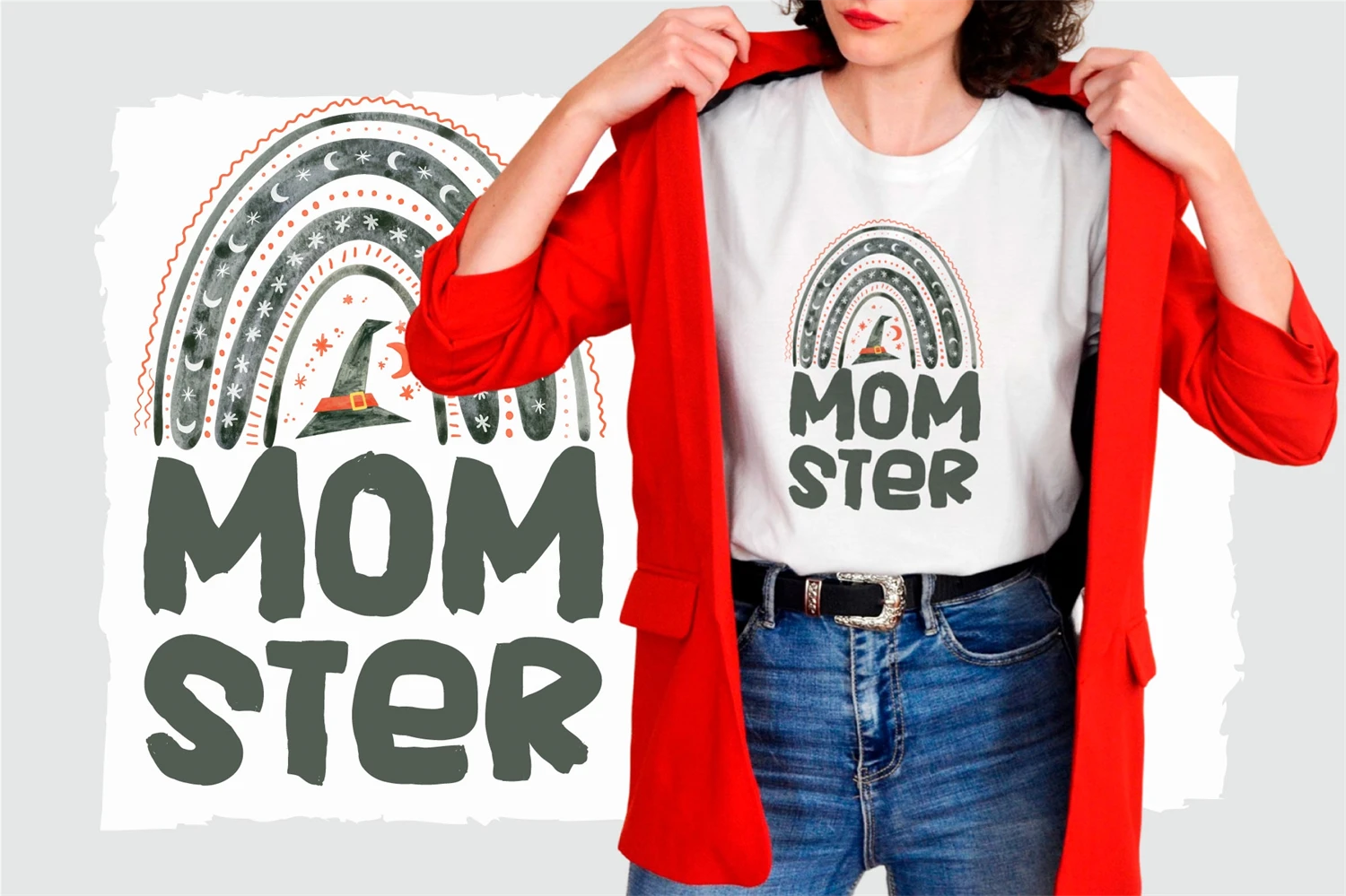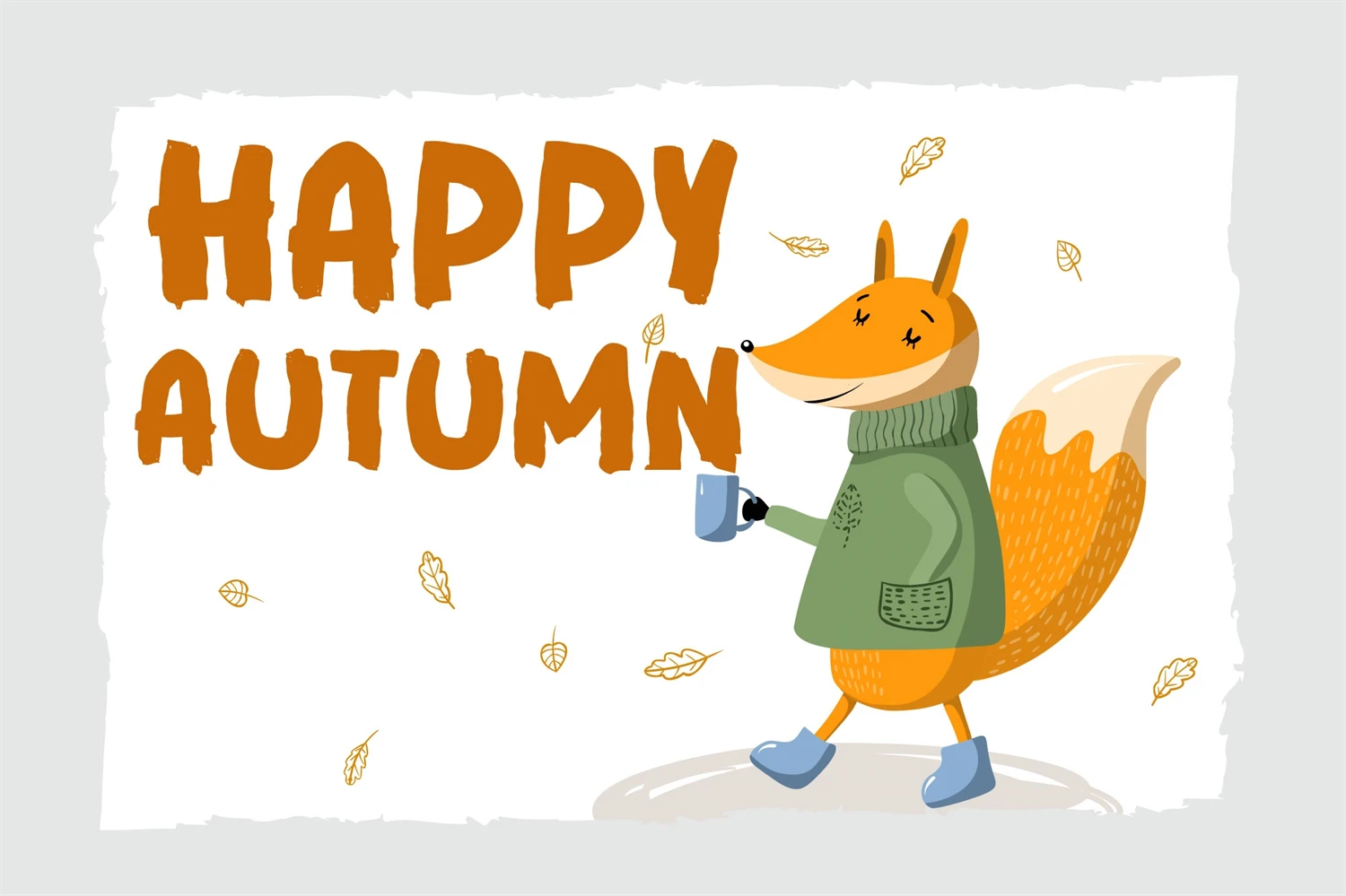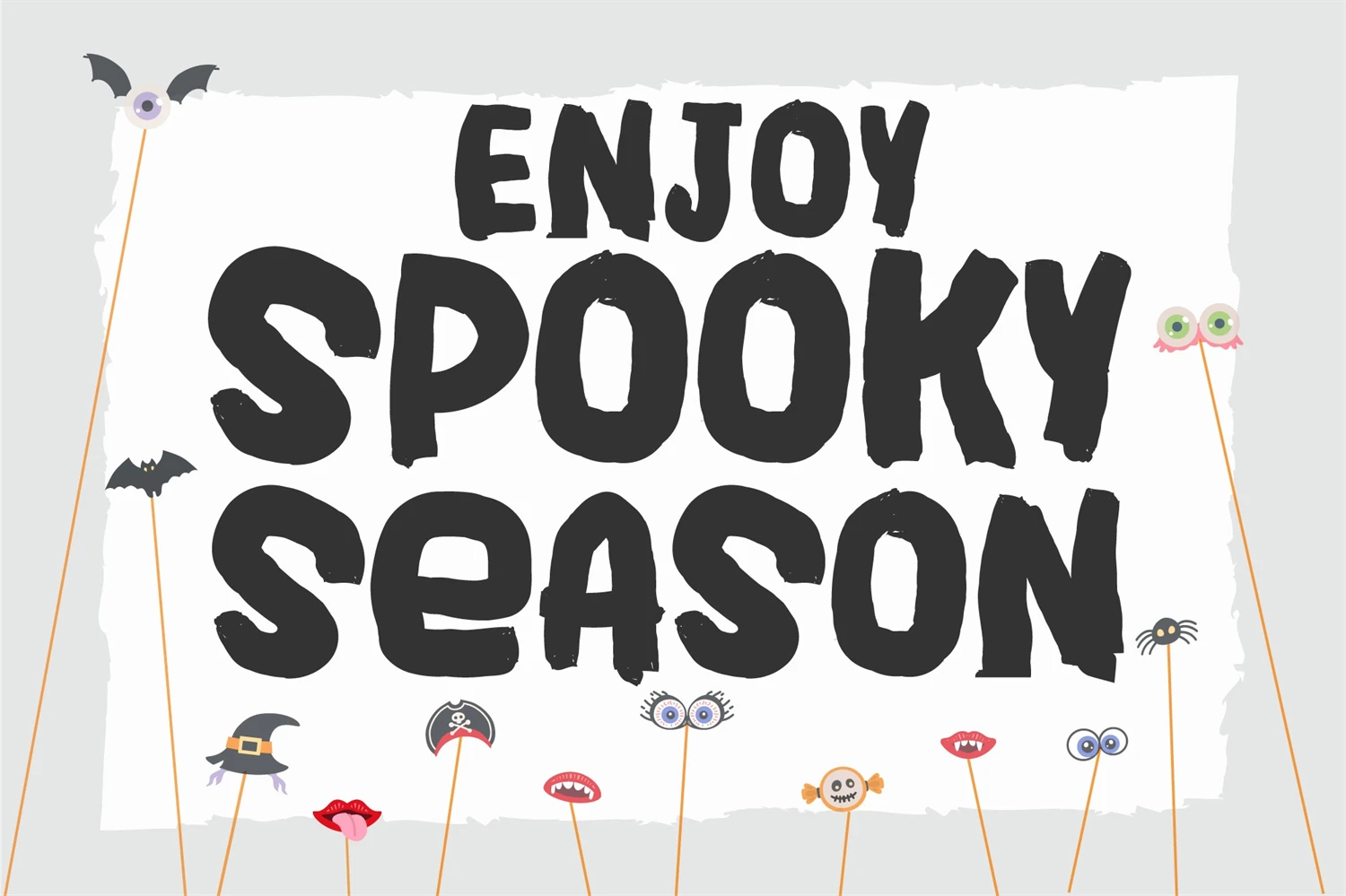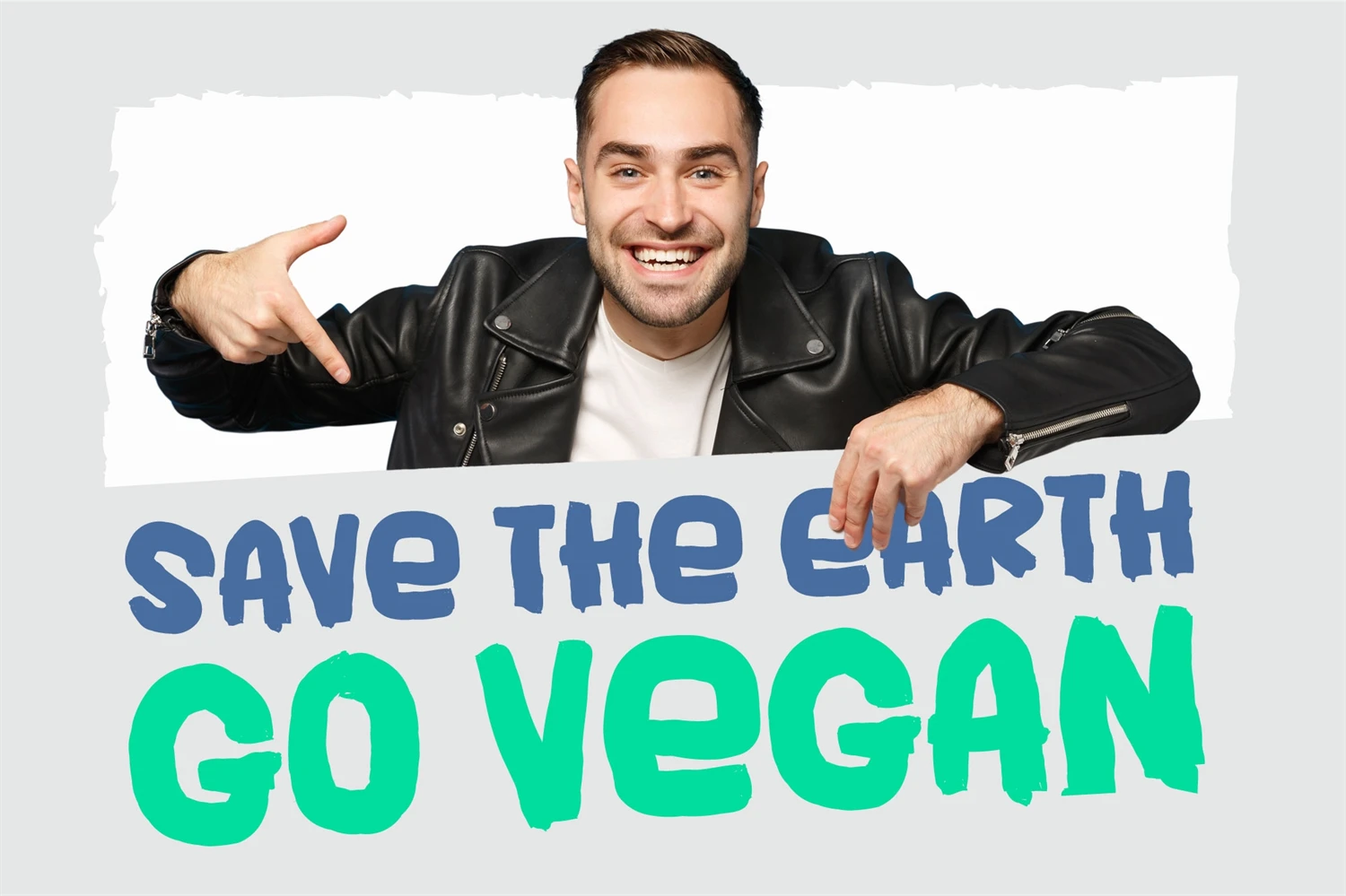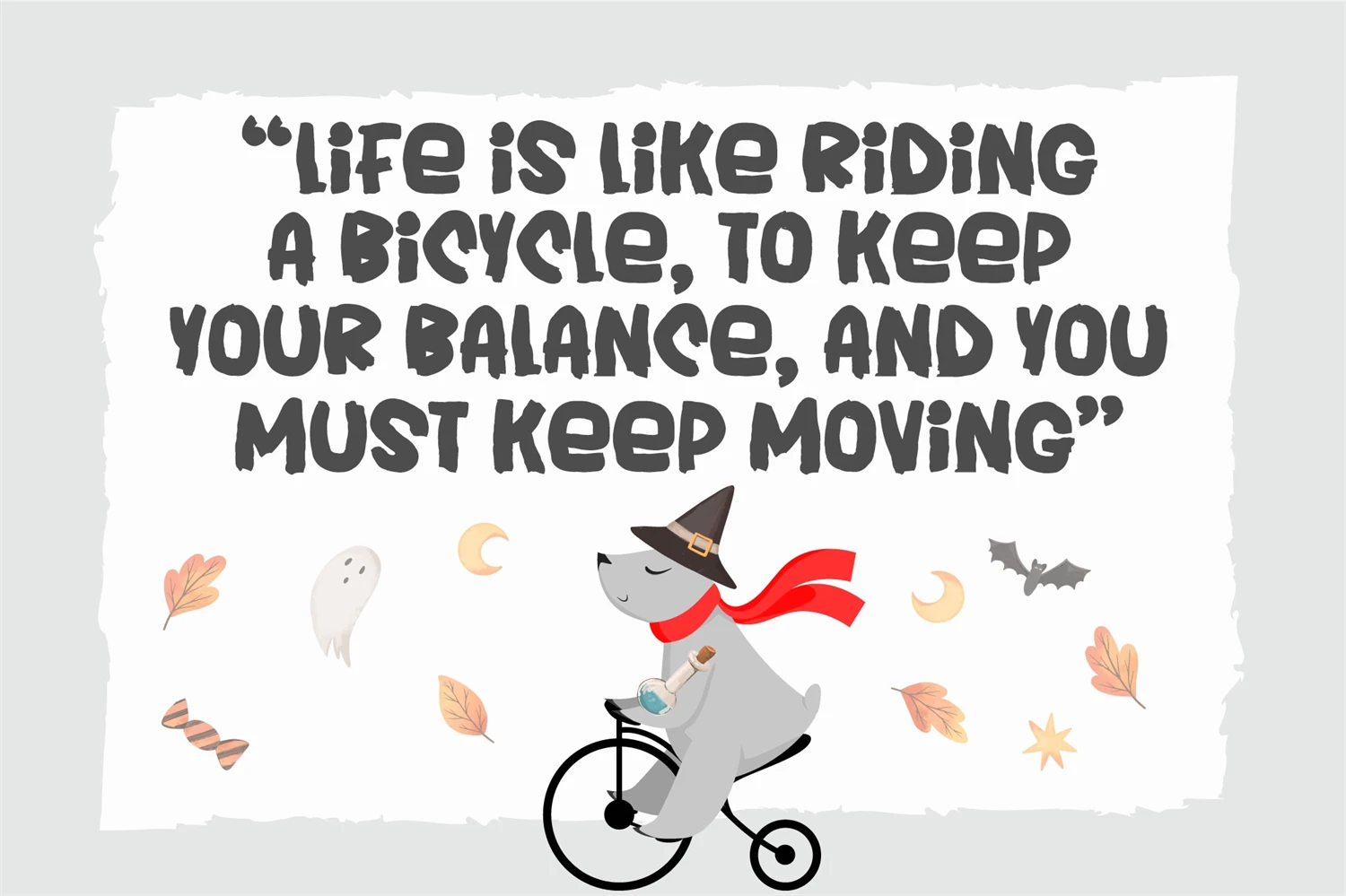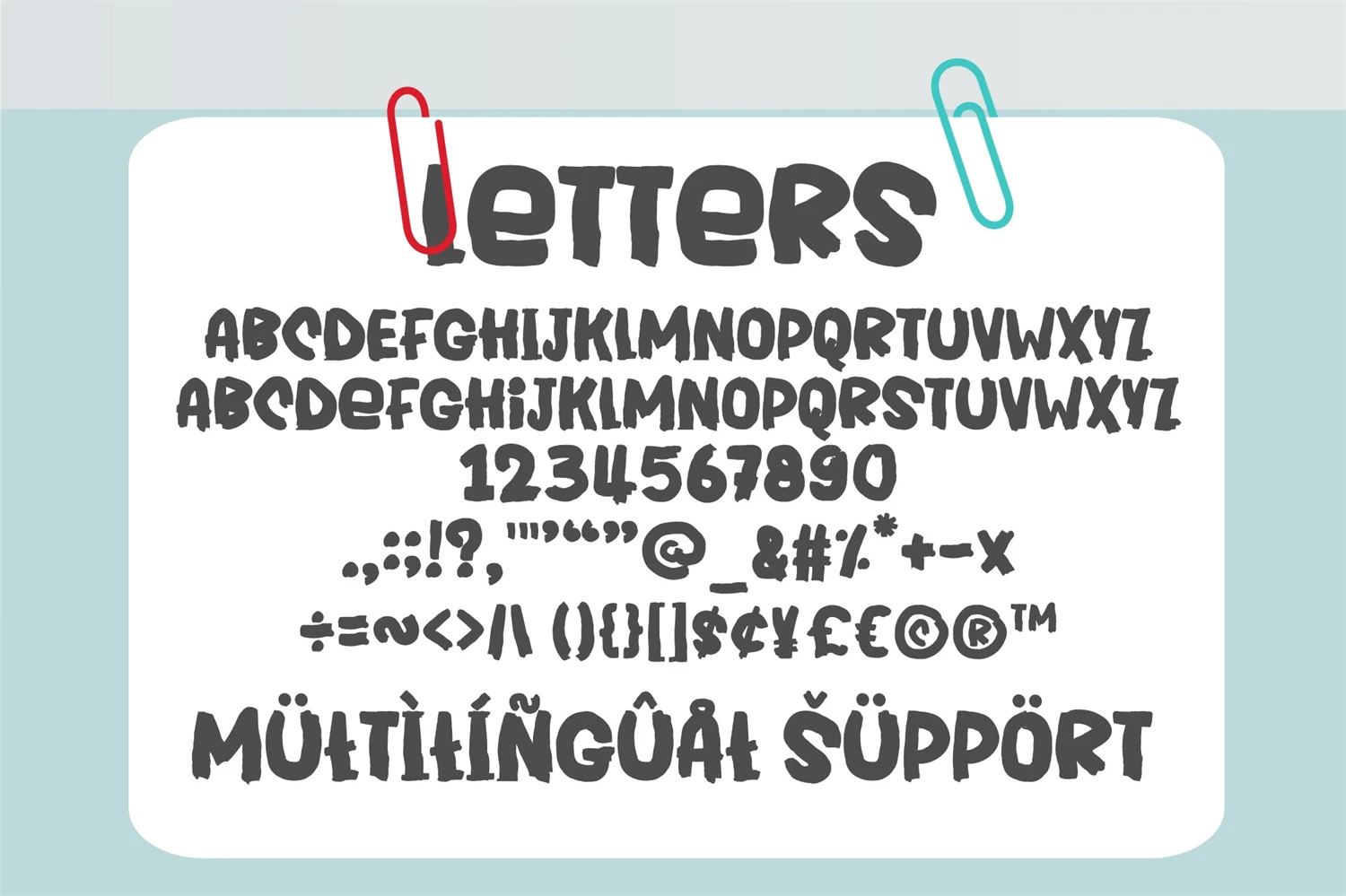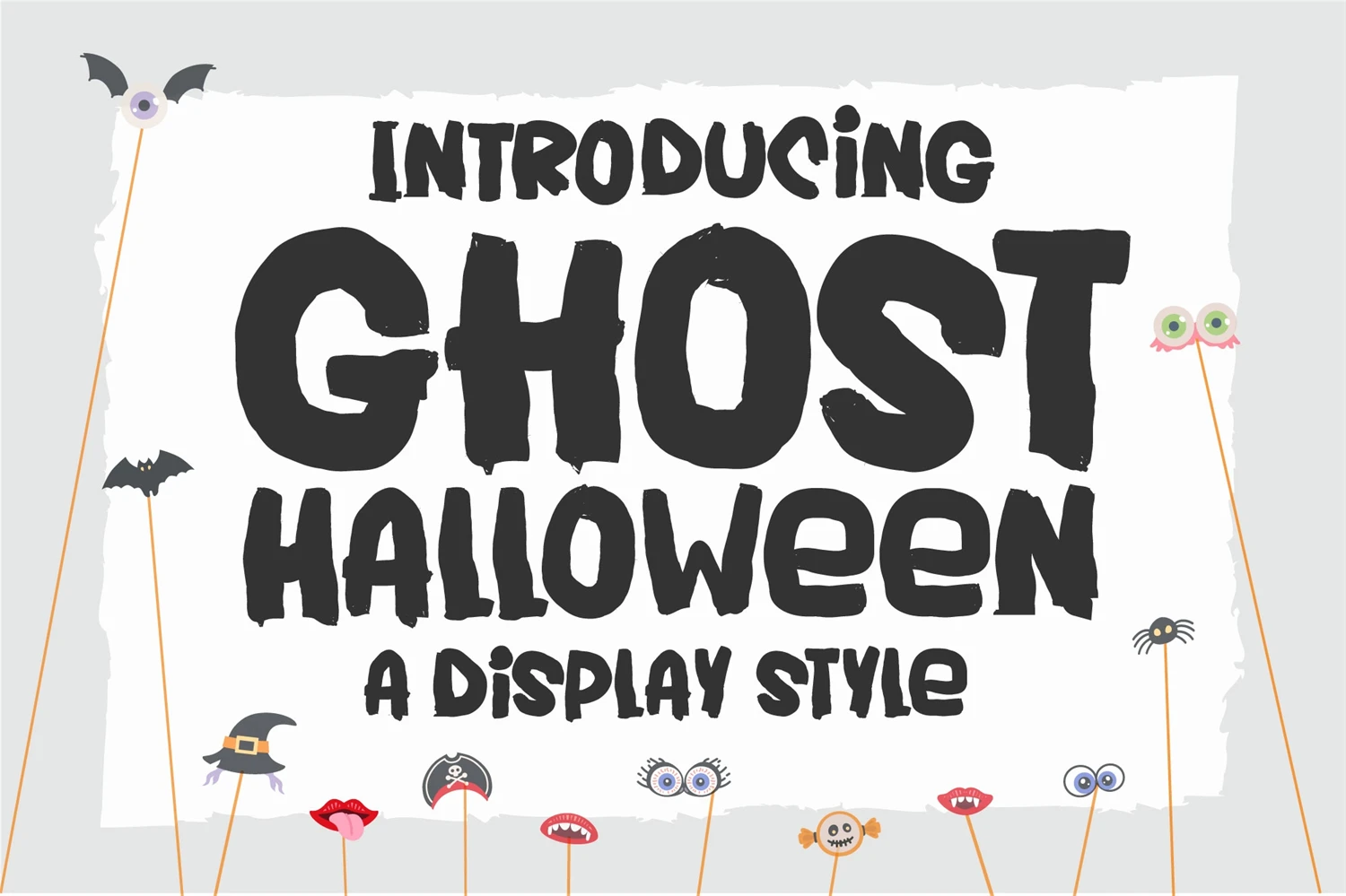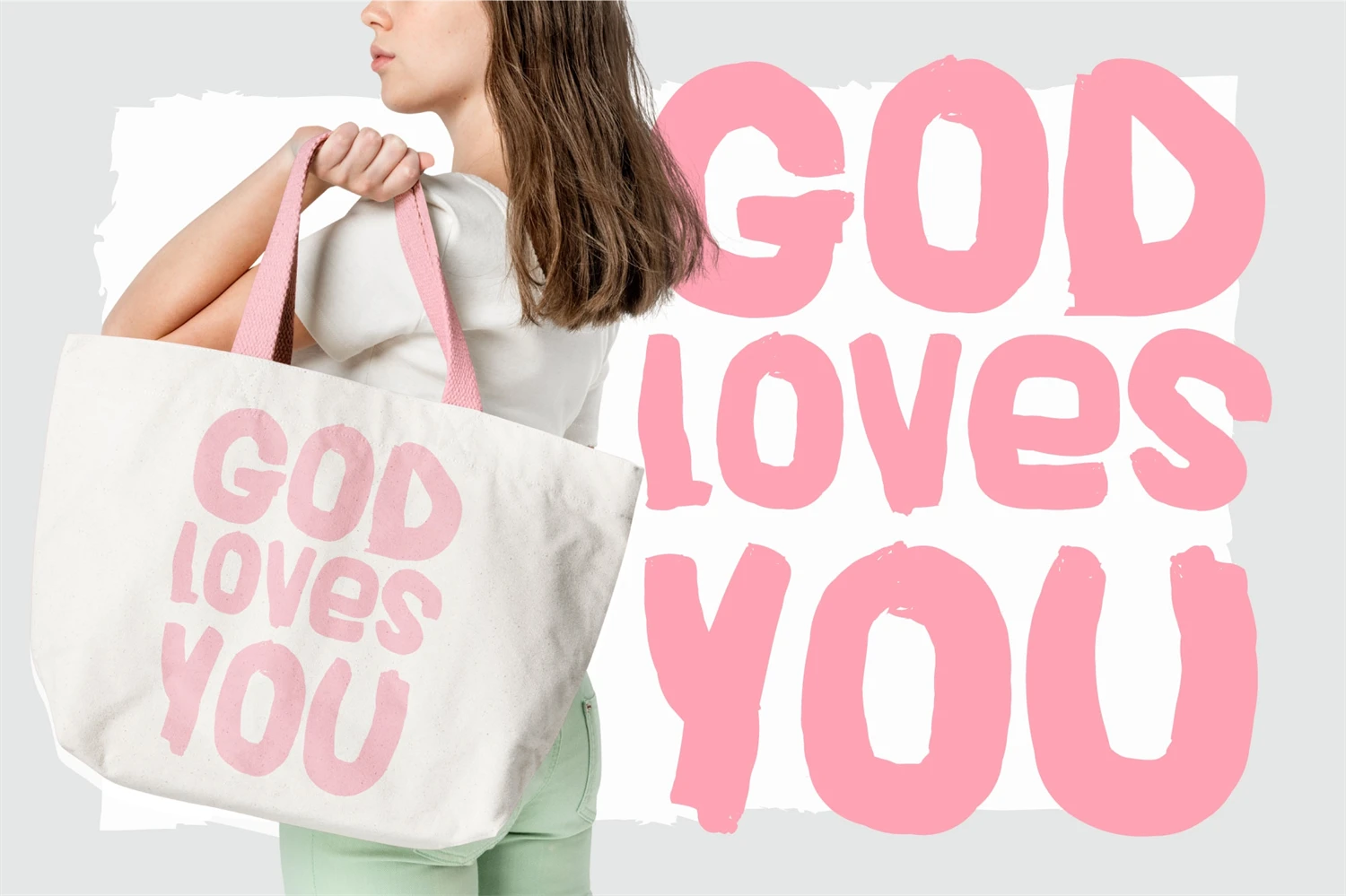
Halloween Font is a delightful brush-style display font. With its cute and charming appeal, this typeface is perfect for adding a touch of whimsy to your designs. The authentic brush strokes give it a personal and realistic feel, making it an ideal choice for various creative projects. From Halloween-themed designs to children's books, party invitations, posters, and more, Ghost Halloween Font will bring a playful and engaging vibe to your creations. Get ready to make your designs stand out with this adorable and versatile font!